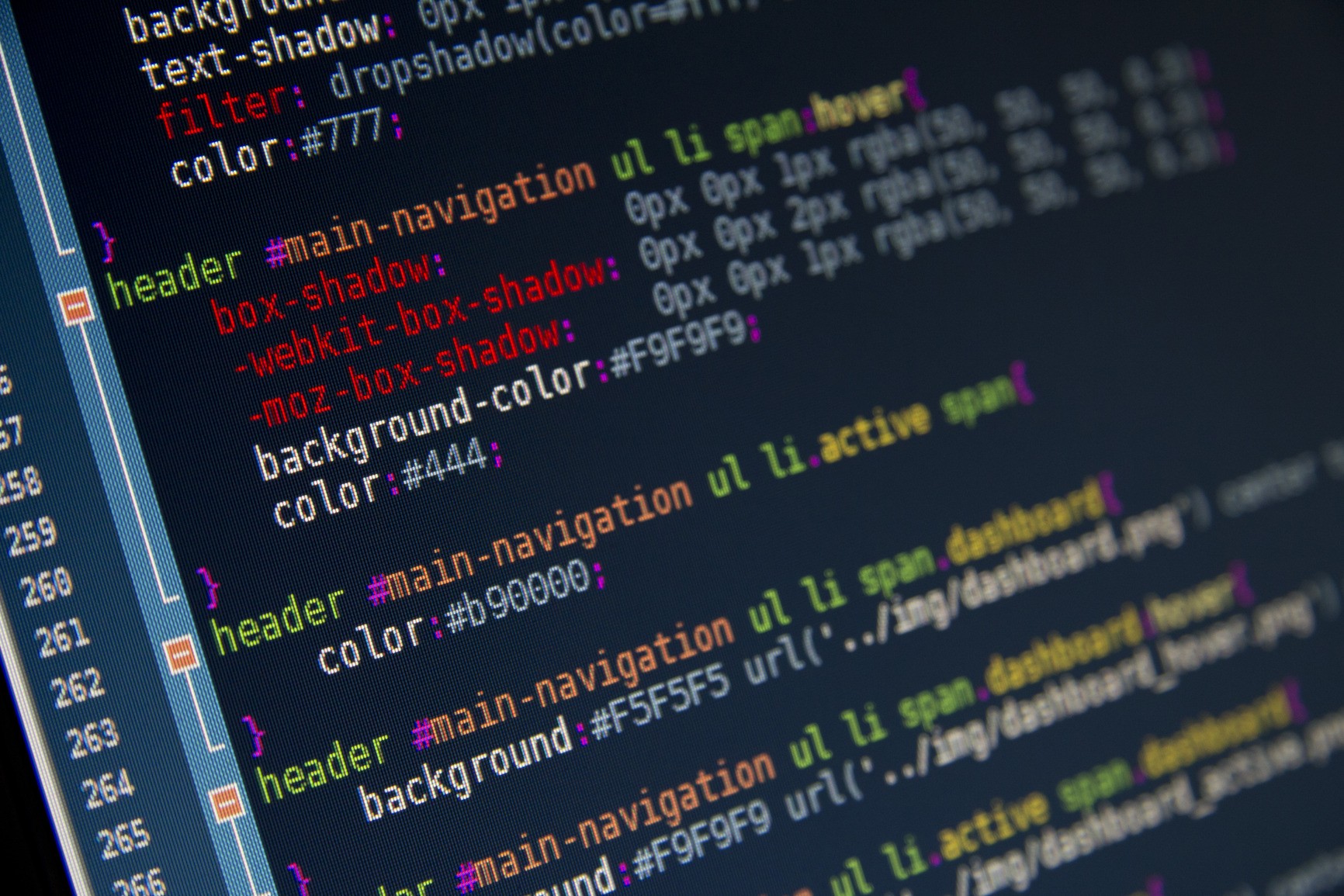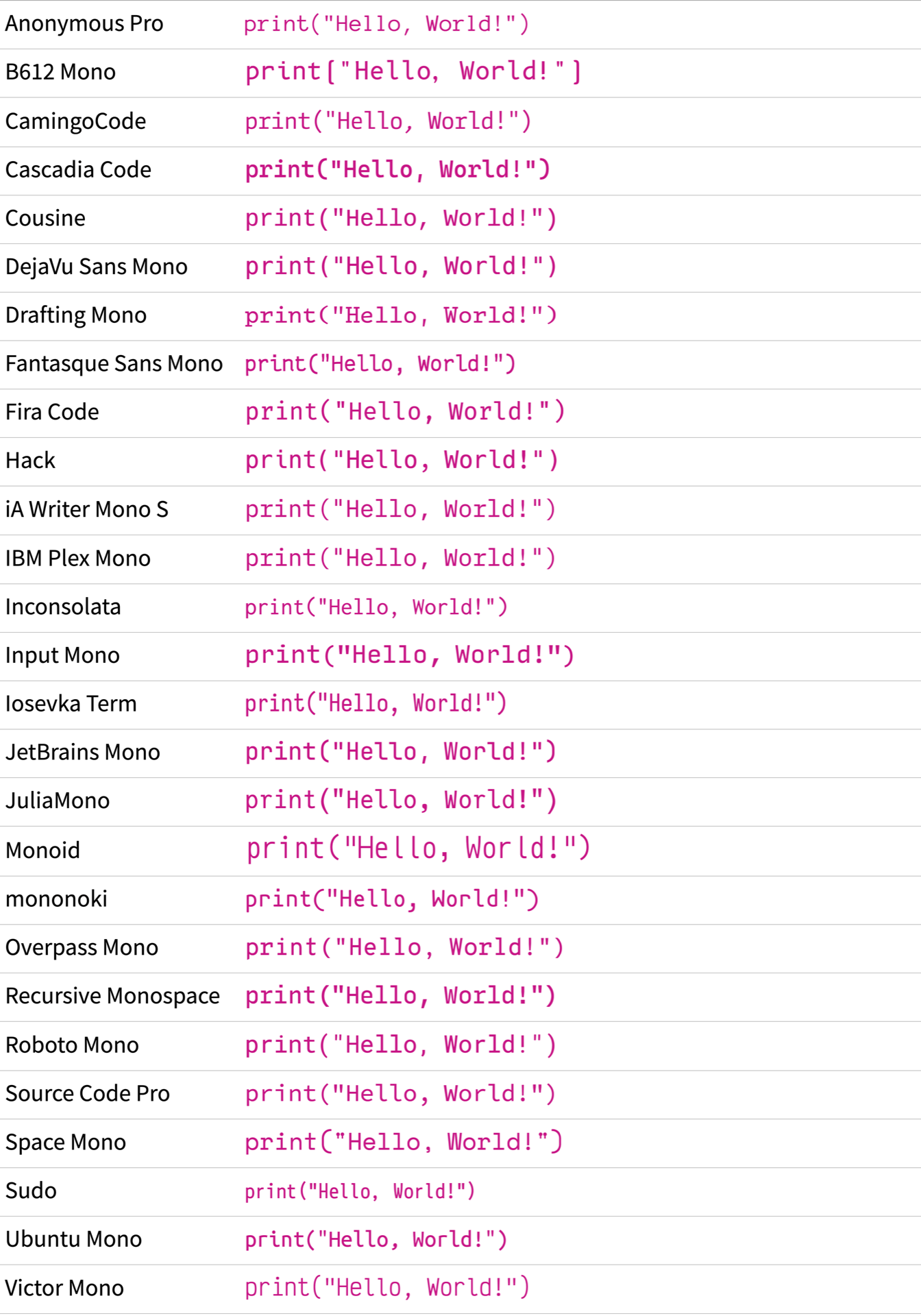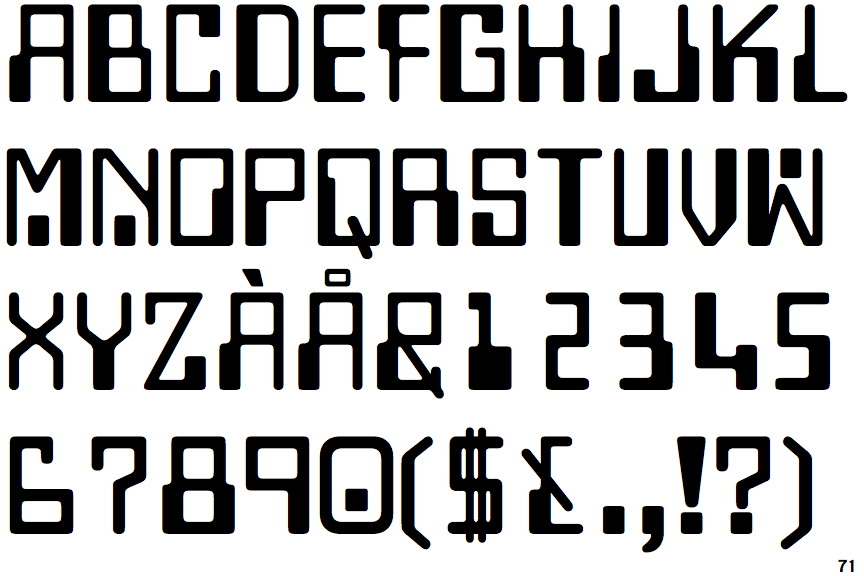
What Font Looks Like Computer Code . Inconsolata is a highly readable and clear monospaced font created by raph levien. The font that you use is an important piece in your tool kit as a programmer. If you want to explore a wide range of coding fonts and compare them, check out codingfont. They have 30 different coding fonts you can quickly switch between to see. After all, you look at your programming font the whole time when writing. Serifed fonts link letters, allowing people to understand words and identifiers as a whole (gestalt perception). Nonserifed fonts should only be used for headlines. Fira code stands out as one of the best fonts for coders primarily because of its unique approach to readability and efficiency. This typeface was designed for code listings and.
Serifed fonts link letters, allowing people to understand words and identifiers as a whole (gestalt perception). Nonserifed fonts should only be used for headlines. If you want to explore a wide range of coding fonts and compare them, check out codingfont. They have 30 different coding fonts you can quickly switch between to see. This typeface was designed for code listings and. Fira code stands out as one of the best fonts for coders primarily because of its unique approach to readability and efficiency. Inconsolata is a highly readable and clear monospaced font created by raph levien. The font that you use is an important piece in your tool kit as a programmer. After all, you look at your programming font the whole time when writing.
What Font Looks Like Computer Code  This typeface was designed for code listings and. They have 30 different coding fonts you can quickly switch between to see. If you want to explore a wide range of coding fonts and compare them, check out codingfont. The font that you use is an important piece in your tool kit as a programmer. This typeface was designed for code listings and. Inconsolata is a highly readable and clear monospaced font created by raph levien. Fira code stands out as one of the best fonts for coders primarily because of its unique approach to readability and efficiency. Nonserifed fonts should only be used for headlines. After all, you look at your programming font the whole time when writing. Serifed fonts link letters, allowing people to understand words and identifiers as a whole (gestalt perception).
Lazenby Computer Font Download Fonts4Free What Font Looks Like Computer Code  If you want to explore a wide range of coding fonts and compare them, check out codingfont. Nonserifed fonts should only be used for headlines. After all, you look at your programming font the whole time when writing. This typeface was designed for code listings and. They have 30 different coding fonts you can quickly switch between to see. Inconsolata. What Font Looks Like Computer Code.
15 Best Programming Fonts for Coding and Development (Free!) What Font Looks Like Computer Code  After all, you look at your programming font the whole time when writing. Inconsolata is a highly readable and clear monospaced font created by raph levien. Nonserifed fonts should only be used for headlines. Serifed fonts link letters, allowing people to understand words and identifiers as a whole (gestalt perception). This typeface was designed for code listings and. If you. What Font Looks Like Computer Code.
MyFonts Computer fonts What Font Looks Like Computer Code  If you want to explore a wide range of coding fonts and compare them, check out codingfont. They have 30 different coding fonts you can quickly switch between to see. Inconsolata is a highly readable and clear monospaced font created by raph levien. Fira code stands out as one of the best fonts for coders primarily because of its unique. What Font Looks Like Computer Code.
Retro Computer Font Download What Font Looks Like Computer Code  If you want to explore a wide range of coding fonts and compare them, check out codingfont. Nonserifed fonts should only be used for headlines. They have 30 different coding fonts you can quickly switch between to see. After all, you look at your programming font the whole time when writing. The font that you use is an important piece. What Font Looks Like Computer Code.
Using Two Fonts in VS Code Aaron Young What Font Looks Like Computer Code  They have 30 different coding fonts you can quickly switch between to see. If you want to explore a wide range of coding fonts and compare them, check out codingfont. Serifed fonts link letters, allowing people to understand words and identifiers as a whole (gestalt perception). Nonserifed fonts should only be used for headlines. This typeface was designed for code. What Font Looks Like Computer Code.
Page Fonts What Font Looks Like Computer Code  If you want to explore a wide range of coding fonts and compare them, check out codingfont. After all, you look at your programming font the whole time when writing. This typeface was designed for code listings and. They have 30 different coding fonts you can quickly switch between to see. Fira code stands out as one of the best. What Font Looks Like Computer Code.